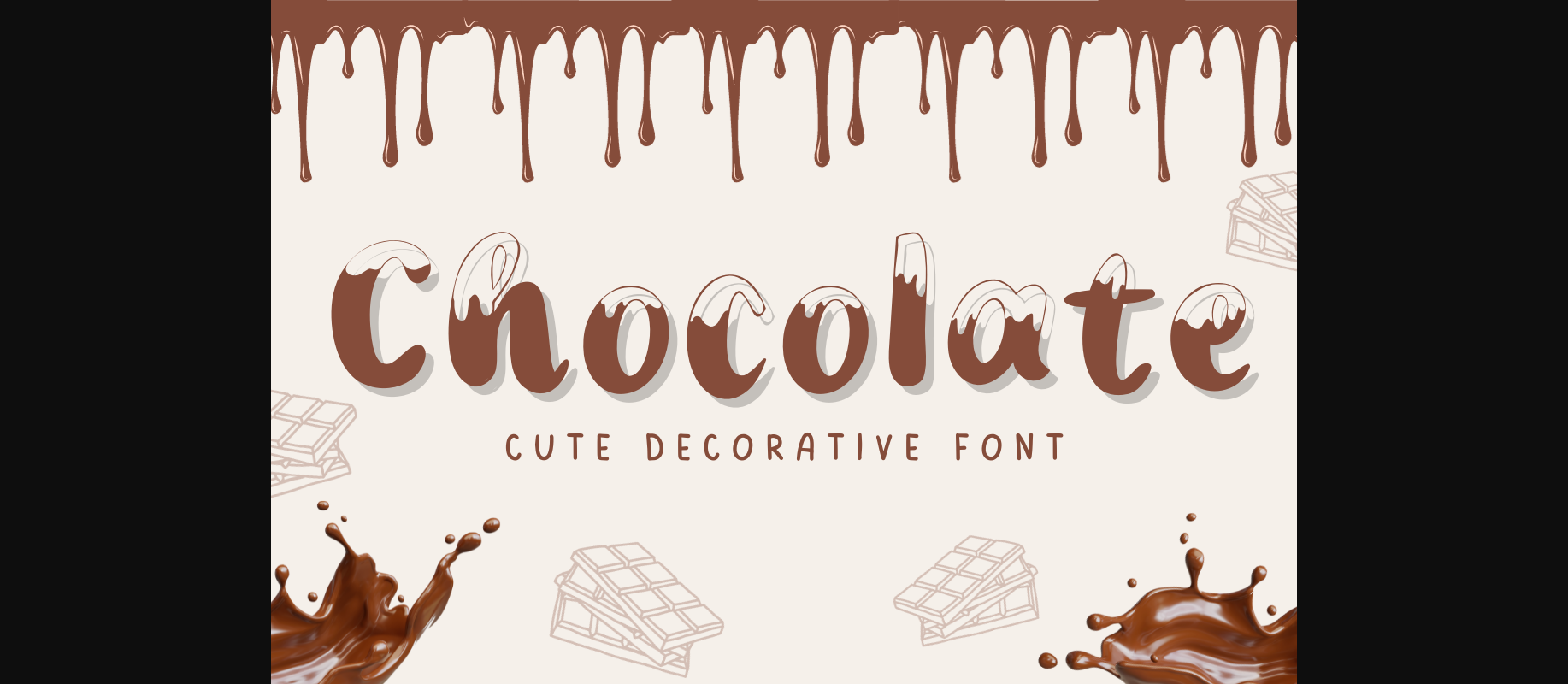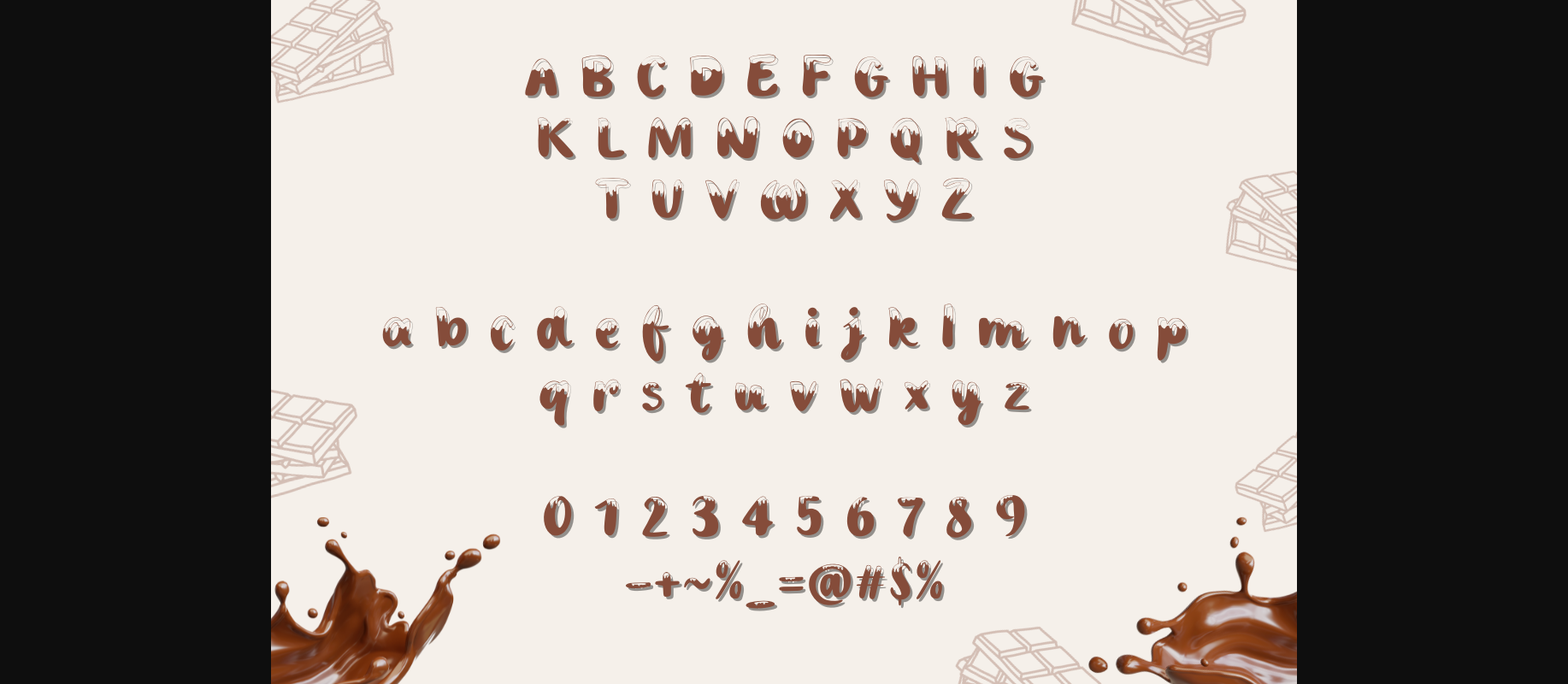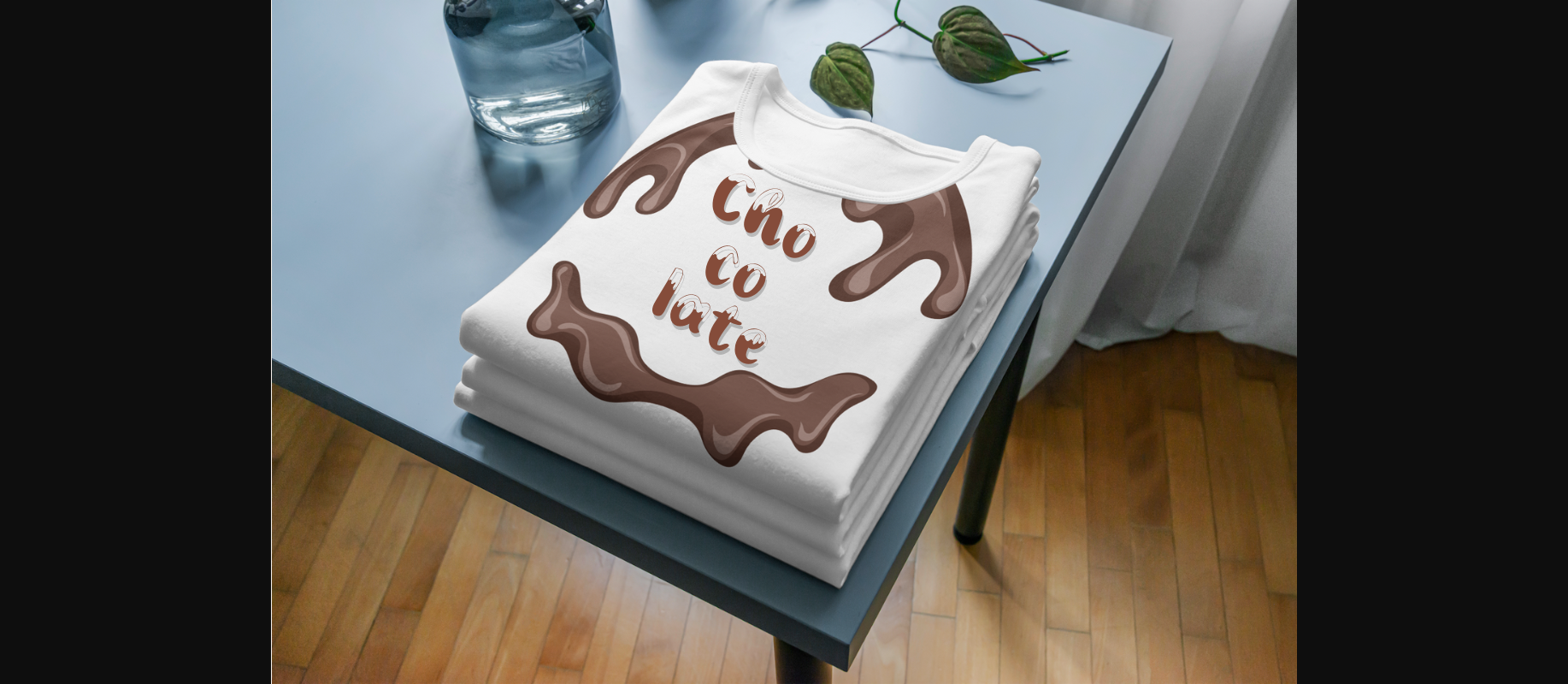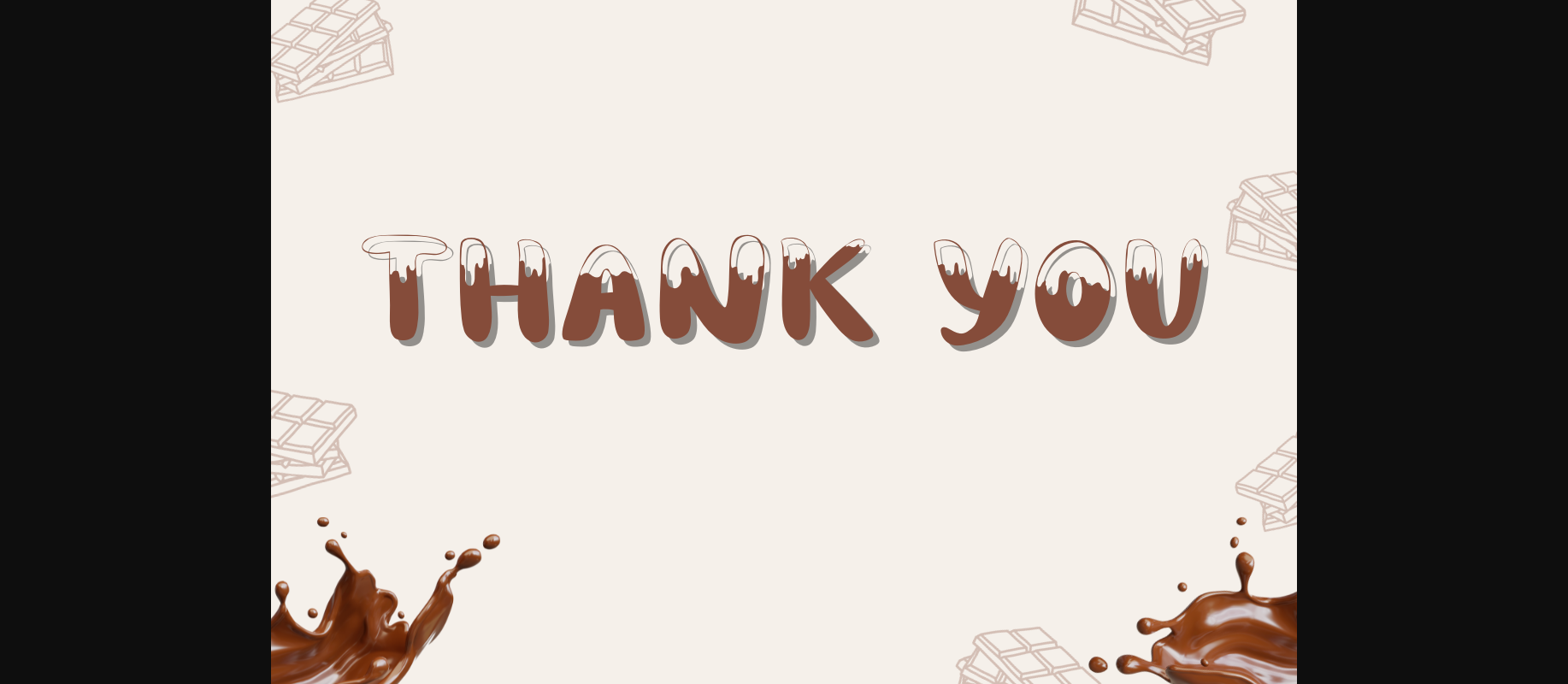
Chocolate Font
About Chocolate Font
Chocolate is a delightful and whimsical typeface that adds a touch of sweetness to any project. Its charming, handcrafted design makes it perfect for invitations, greeting cards, and creative branding. Once you see it, you’ll definitely want to add.